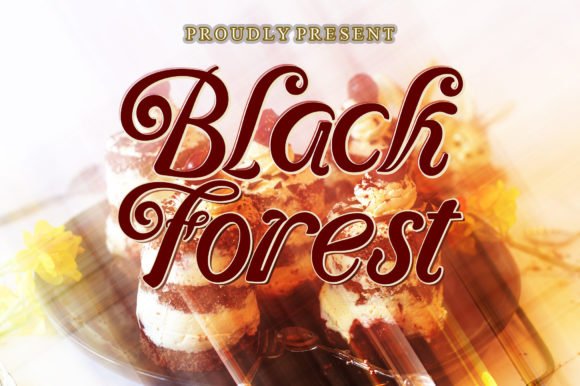
The Perfect Font for a Timeless Touch Remember that moment when you stumbled upon an old, dusty book in your attic, and the first thing that caught your eye was the beautiful, classic typography? The words seemed to dance across the page, transporting you to a bygone era. That’s the magic of the Black Forest…